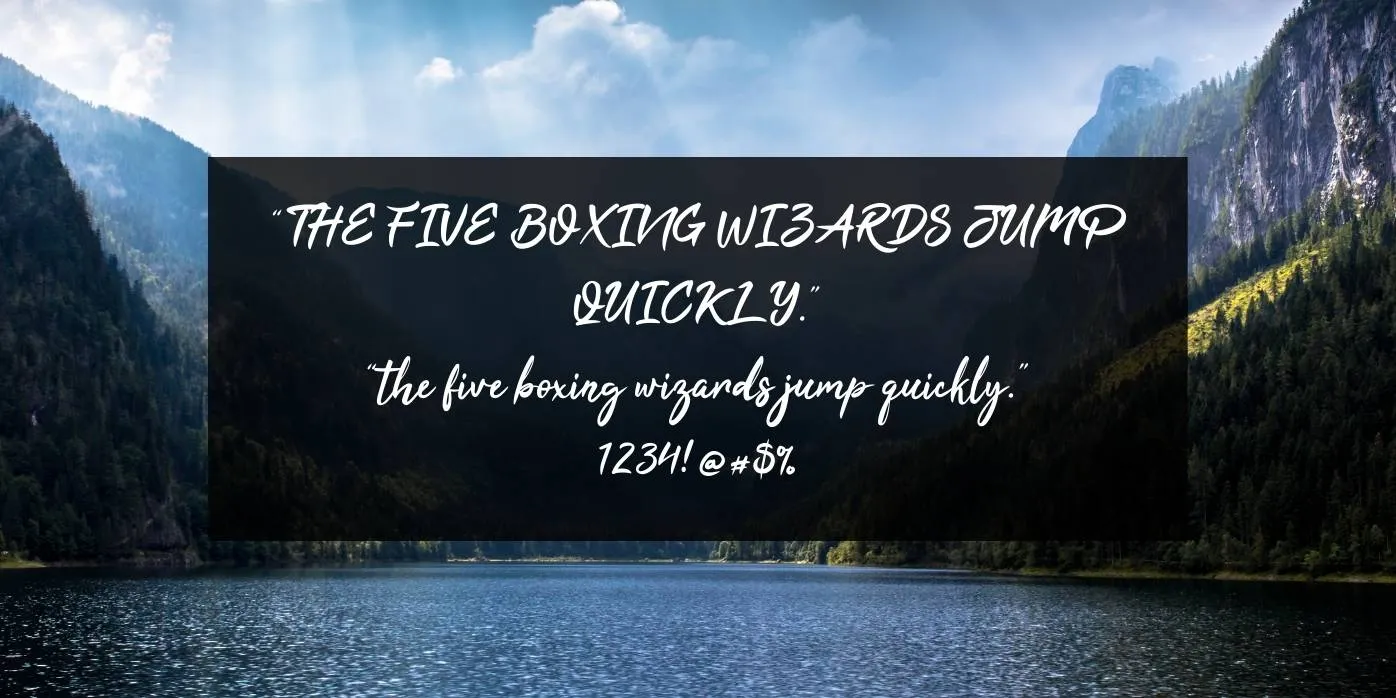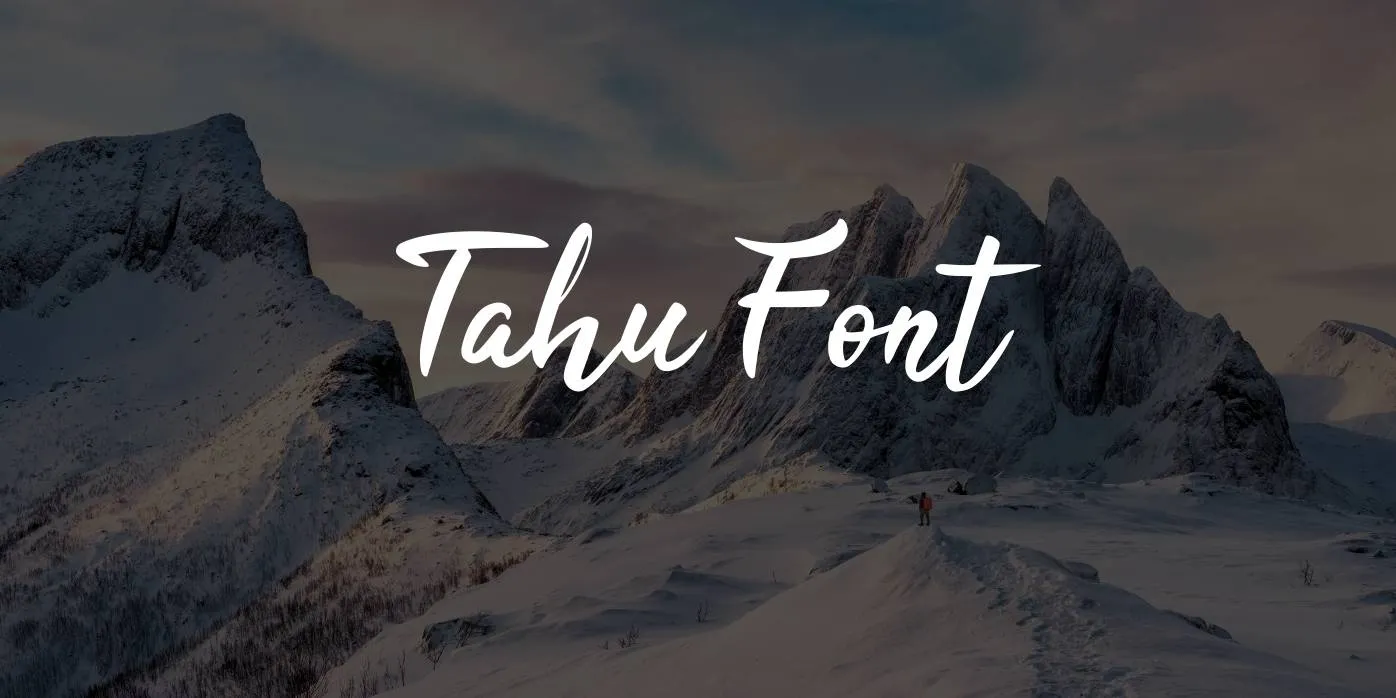
Tahu Font
Here, we are going to present Tahu Font. This family was designed by Khurasan. This typeface belongs to the script family. The Tahu Typeface has a unique style.
The letters are sharp and have an angular look. This font is perfect for headlines and titles. This script family is available in two styles: Regular and Bold. Each style contains two weights (Light and Regular) and italics.
Tahu Typeface supports Latin, Cyrillic, and Hebrew characters. It is also best for various software like Canva and Adobe Photoshop. You can also use its similar rage font for various designs. If you are looking for a modern and stylish font, then Tahu Typeface is the perfect choice for your designs.
This awesome family has keen and attractive features that make it stand out from the crowd. The generator tool of this family is very stunning and classic for graphic projects.